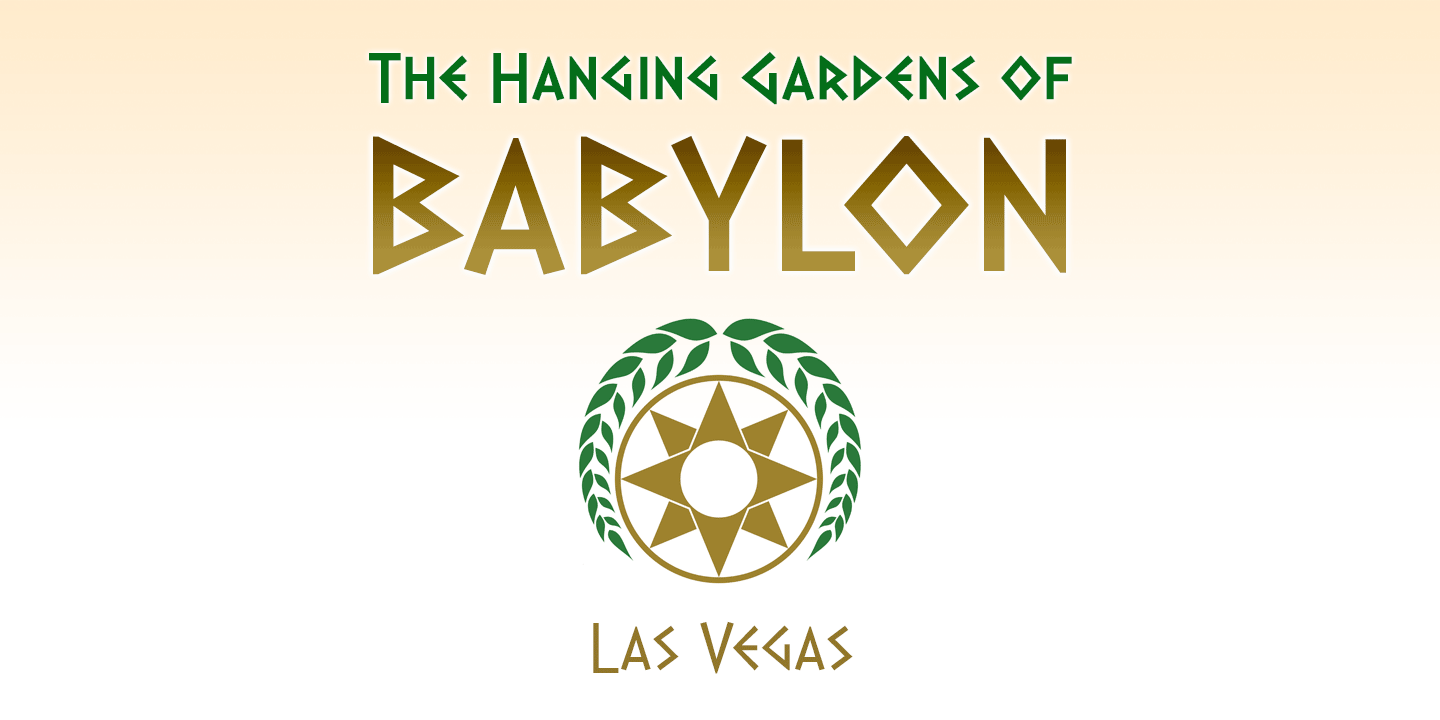
Dalek Pinpoint Font is perfect for sci-fi television graphics, robotic interface designs, futuristic warning systems, alien invasion movie titles, cybernetic organism branding, space invasion games, dystopian fiction covers, mechanical threat signage, extraterrestrial communication displays, robotic warfare graphics, and any project that requires menacing precision with mechanical alien character.
What makes Dalek Pinpoint Font exciting is its chilling ability to communicate robotic menace and alien precision through angular letterforms that embody the cold efficiency of mechanical invaders and extraterrestrial technology. This intimidating typeface features sharp, geometric characteristics with military-like precision that evoke the relentless determination of robotic entities and the calculated threat of alien intelligence. The font's mechanical character adds instant sci-fi authenticity and menacing appeal to any design, making it perfect for projects exploring themes of artificial intelligence and extraterrestrial encounters.
Dalek Pinpoint Font comes in multiple font families including Regular, Bold, Light, Condensed, Stencil, and Mechanical variations, providing designers with comprehensive options to create threatening compositions and achieve the perfect robotic aesthetic for sci-fi focused design projects.
Whether you're developing science fiction entertainment branding, creating robotic interface materials, or designing futuristic threat campaigns, Dalek Pinpoint Font Free Download offers the perfect solution for projects demanding authentic mechanical character and alien precision. This menacing typeface excels in display applications where intimidating presence is essential, ensuring your designs communicate robotic efficiency and extraterrestrial threat. The angular character and mechanical styling of Dalek Pinpoint Font make it an indispensable tool for designers who prioritize sci-fi authenticity, robotic themes, and alien invasion aesthetics in their typographic selections.